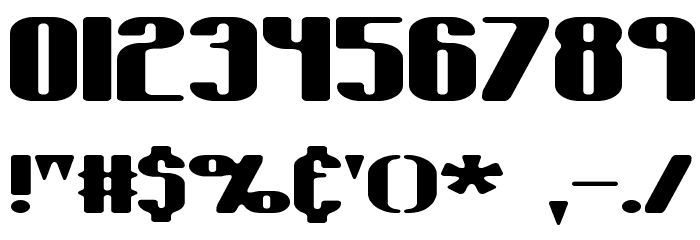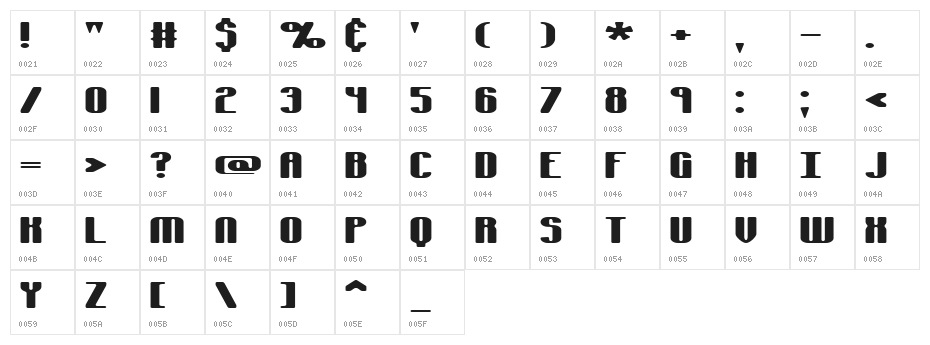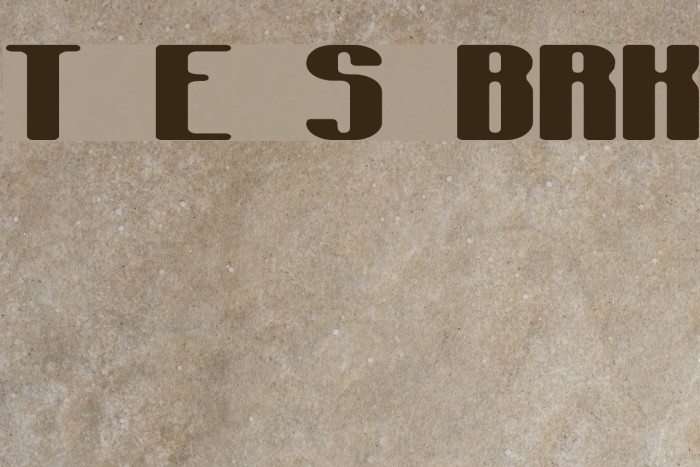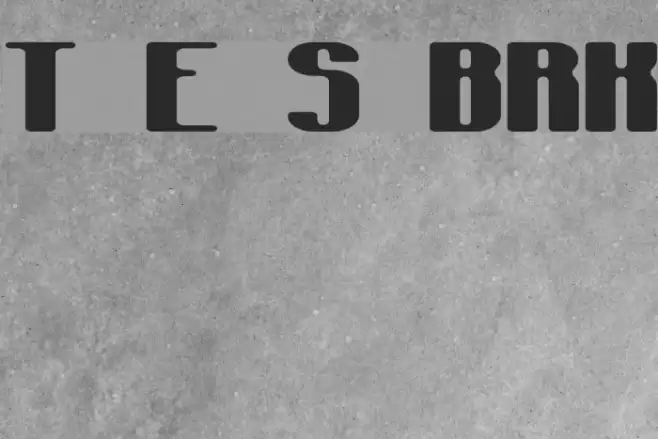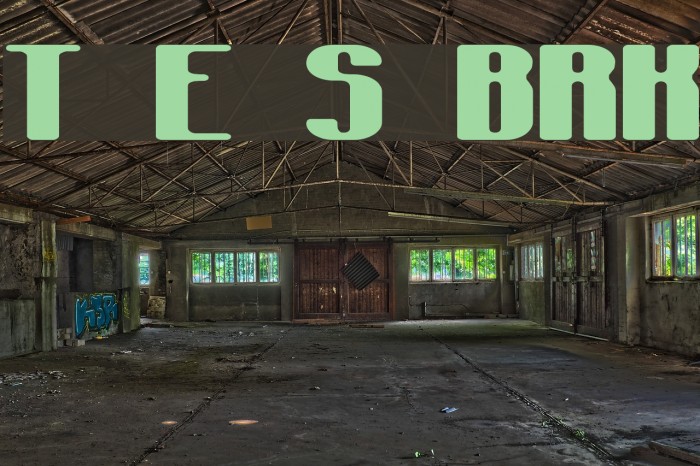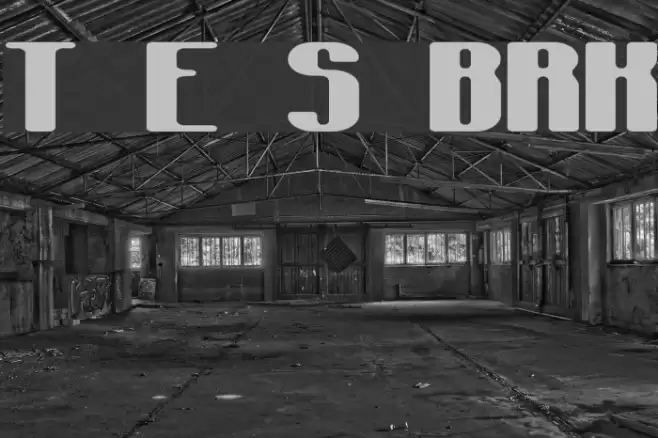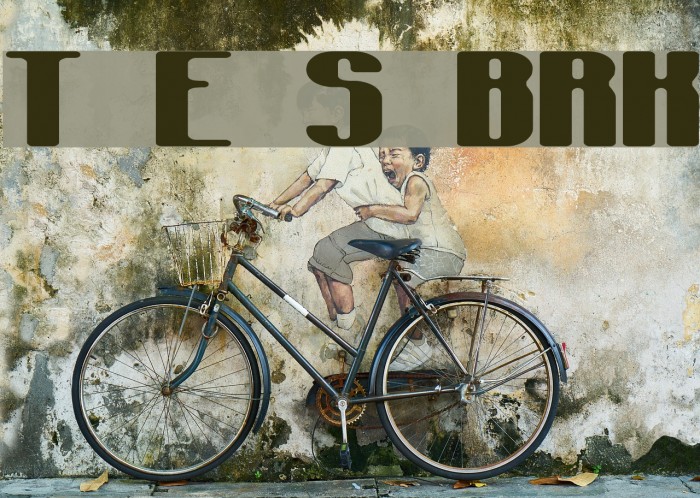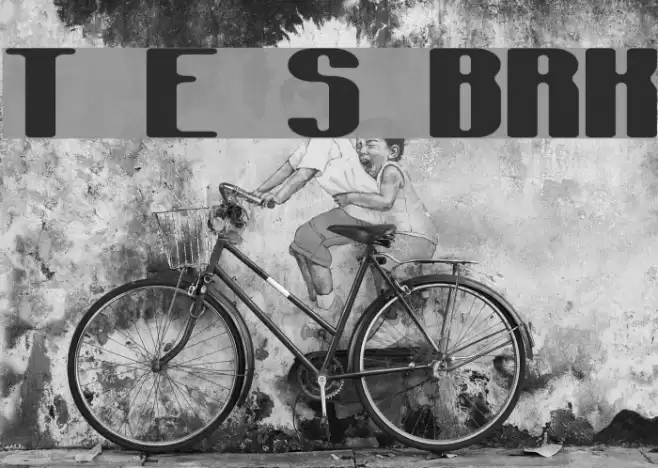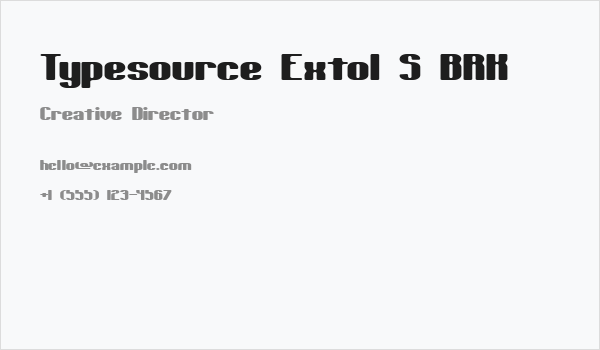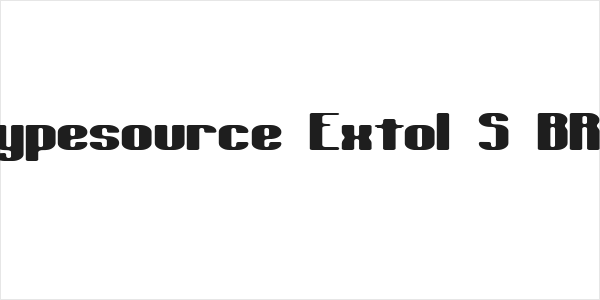
Typesource Extol S BRK Font
Typesource Extol S BRK Description
This font features a bold and striking design with a strong presence. The characters are wide and have a distinct, blocky appearance, making them highly legible and impactful. The uppercase letters are particularly prominent, with a uniform height and consistent stroke width that conveys a sense of stability and strength. The lowercase letters maintain the same boldness, ensuring readability across different text sizes. Numbers and special characters follow the same design principles, providing a cohesive look throughout. The font's unique style is suitable for projects that require a modern and assertive aesthetic.
| Proposed Projects | Ideal for branding, posters, headlines, and any design requiring a bold statement. |